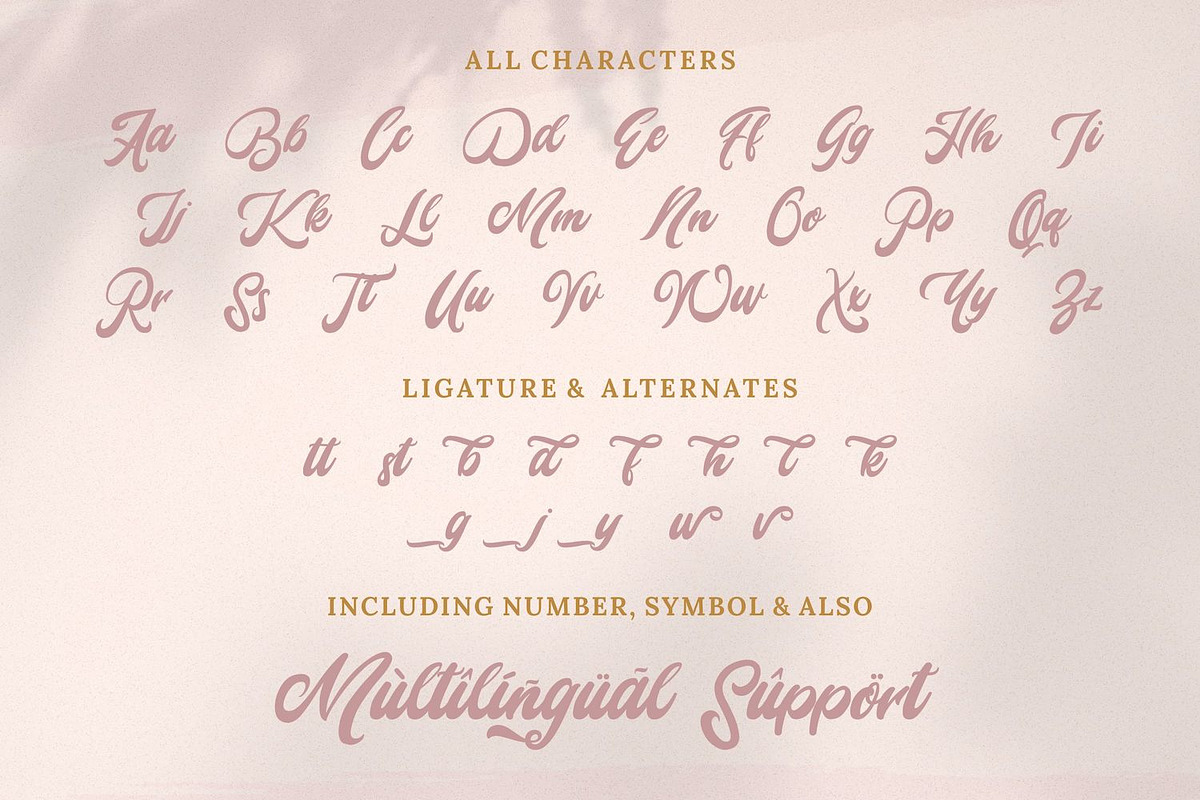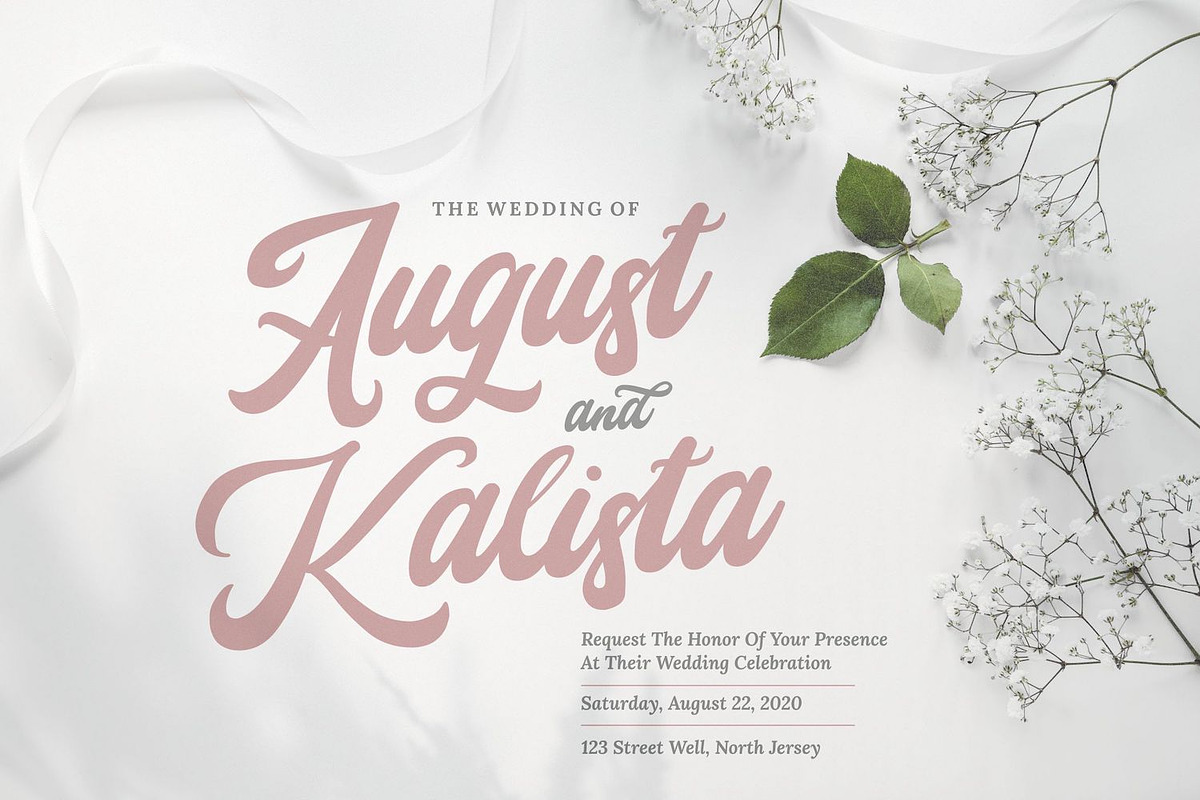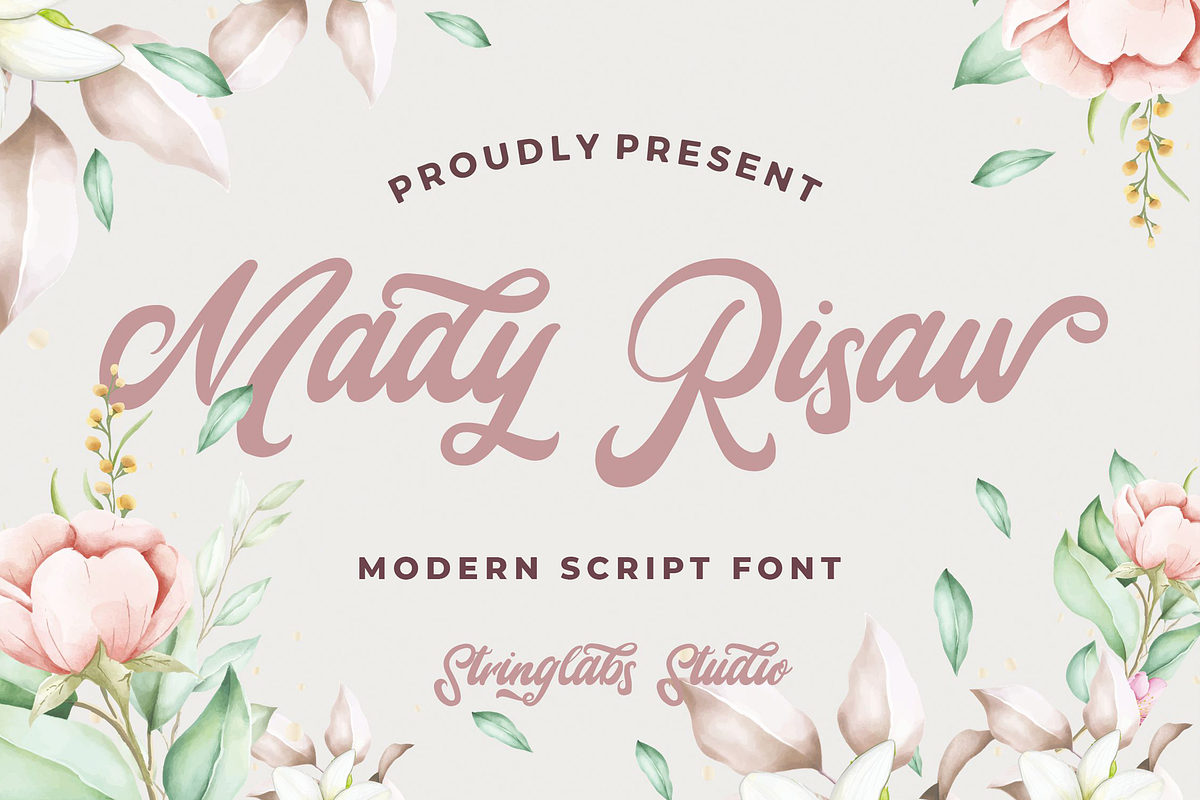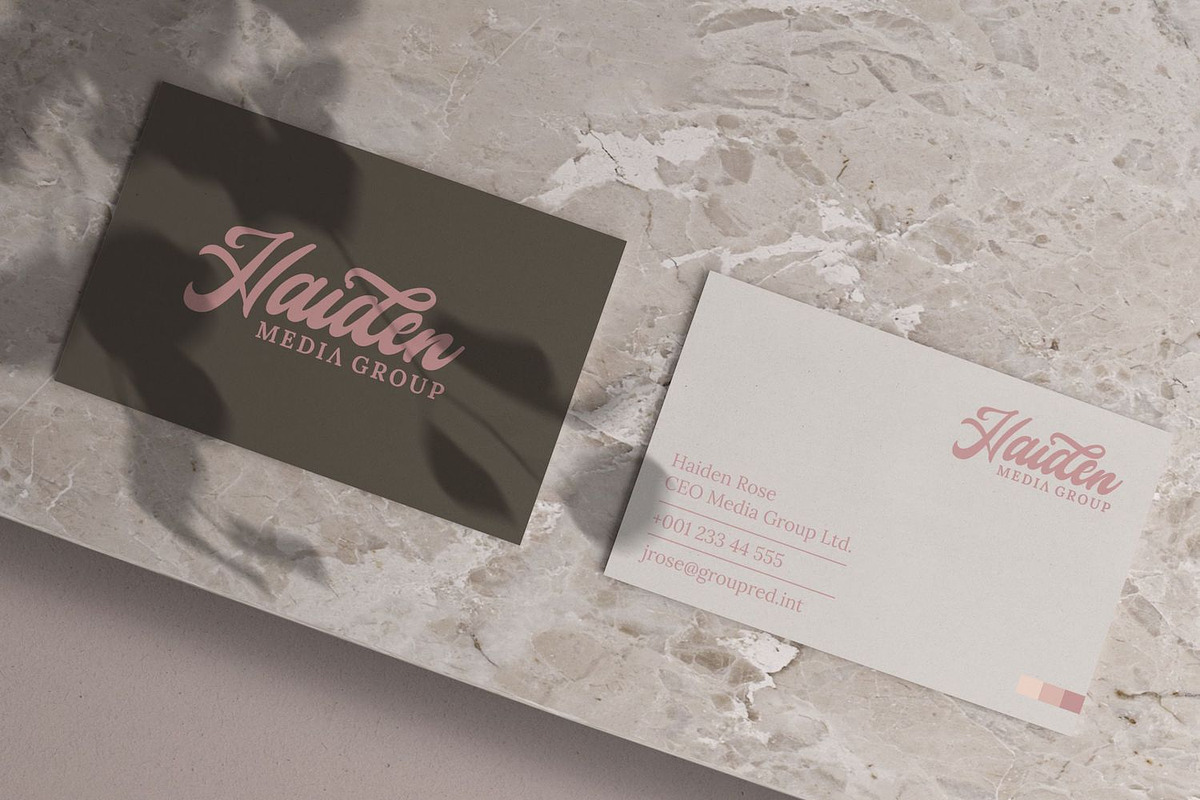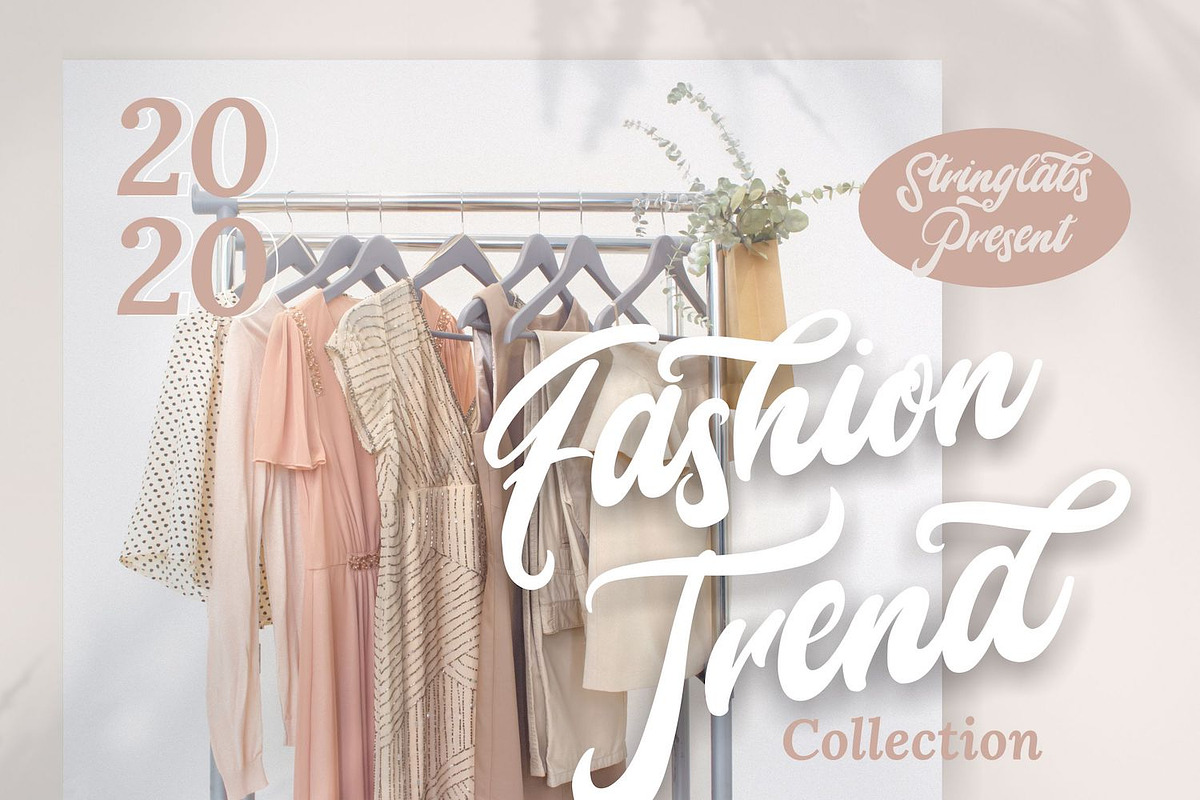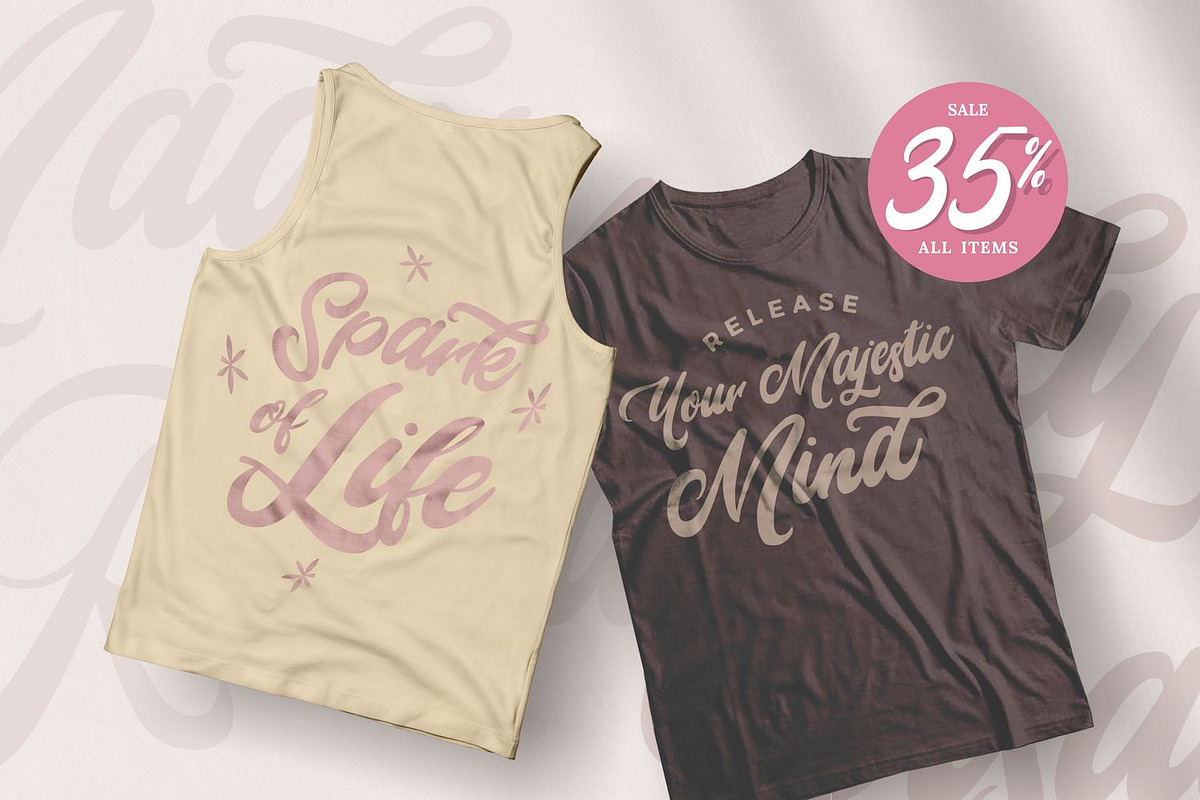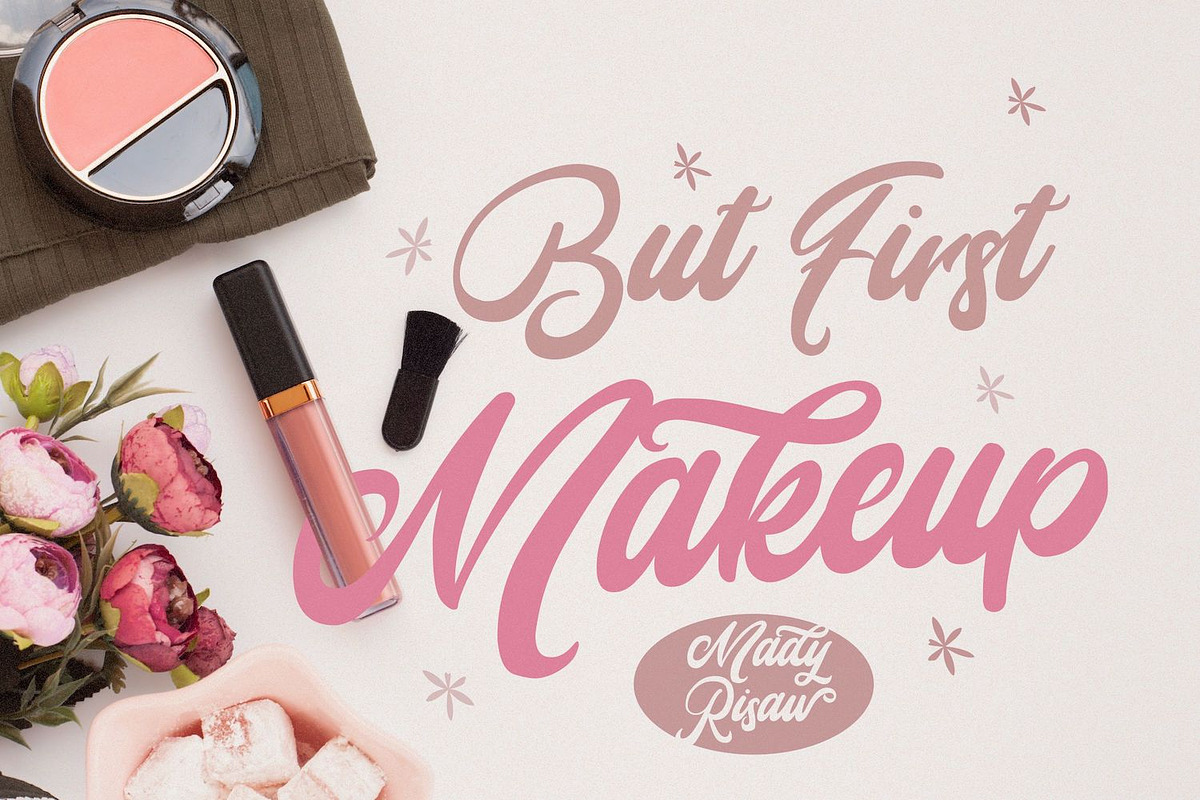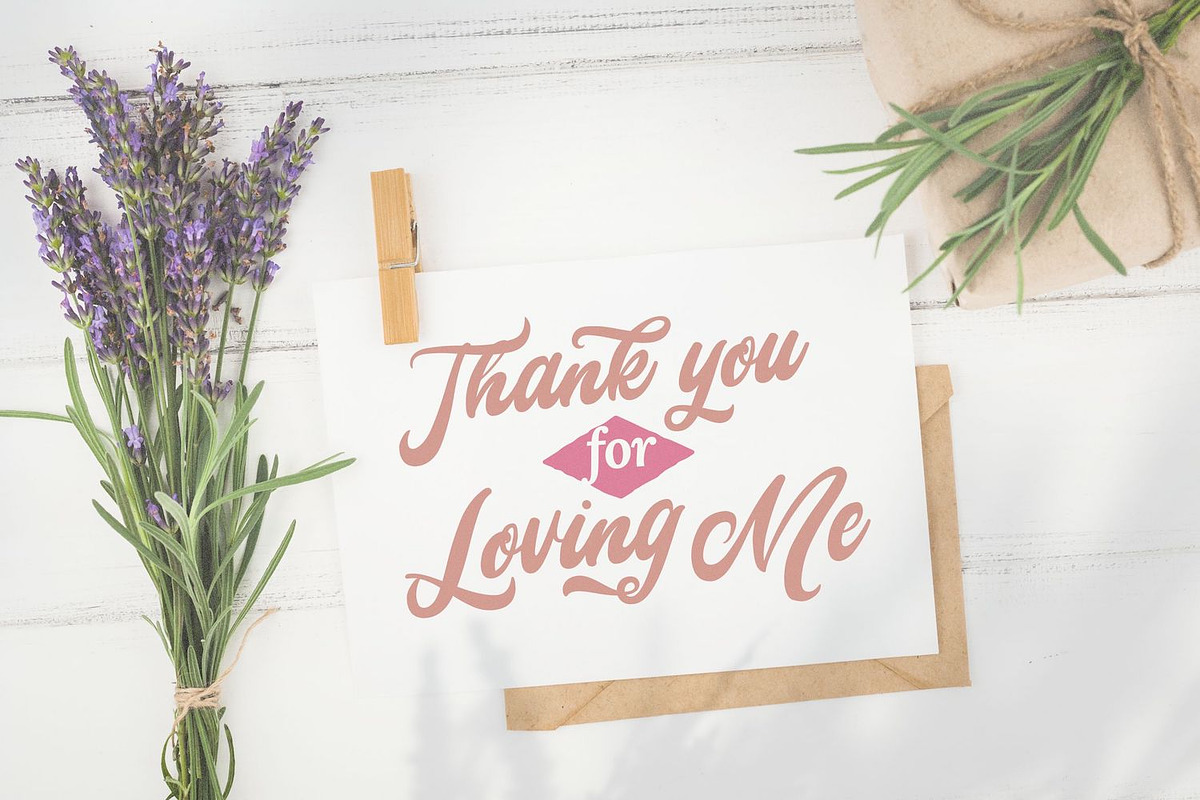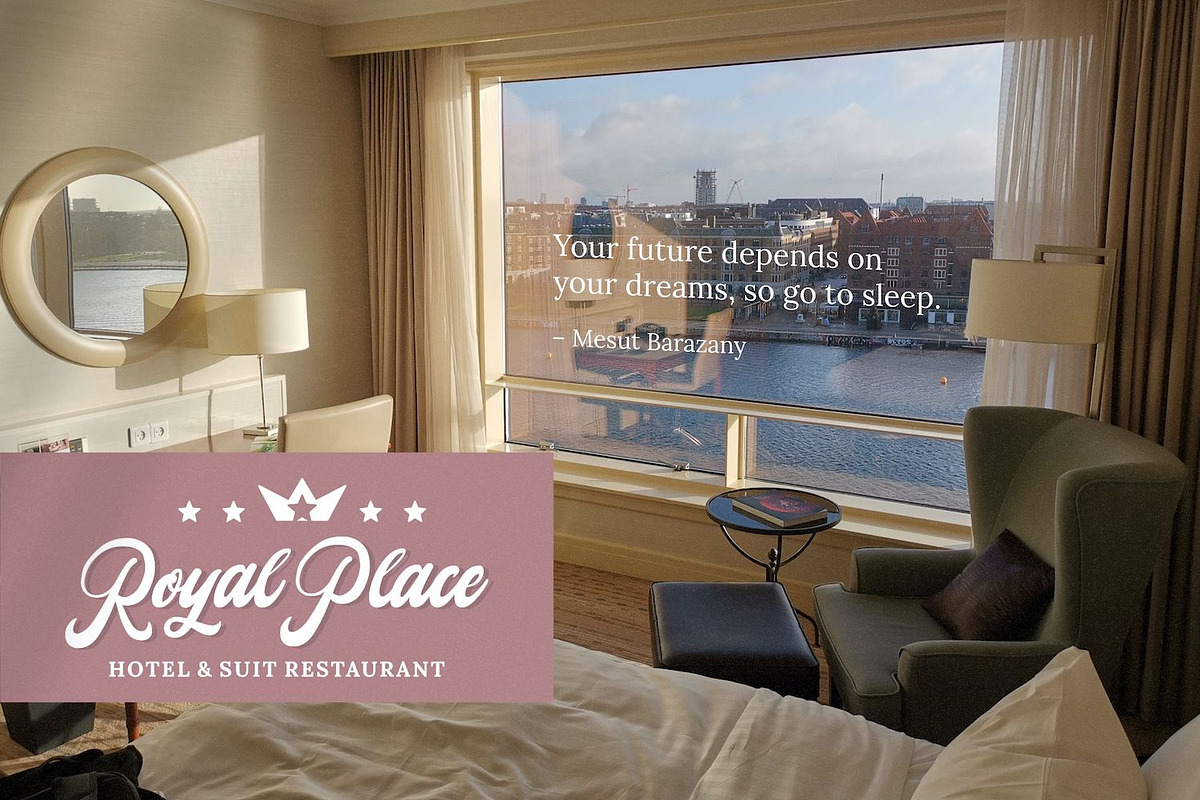
Mady Risaw - Modern Script Font
Introducing Mady Risaw - Modern Script Font
Mady Risaw is a delicate, elegant and flowing handwritten font. It has beautiful and well balanced characters and as a result, it matches a wide pool of designs. Add it to your most creative ideas and notice how it makes them come alive!